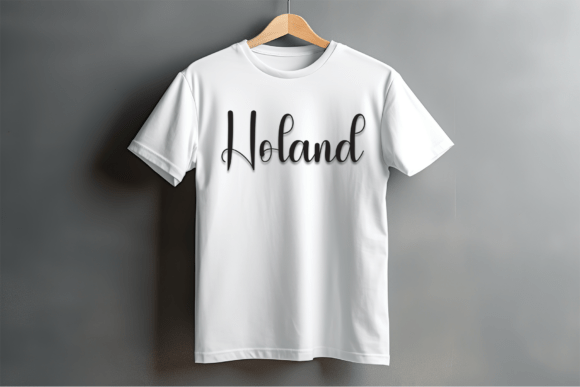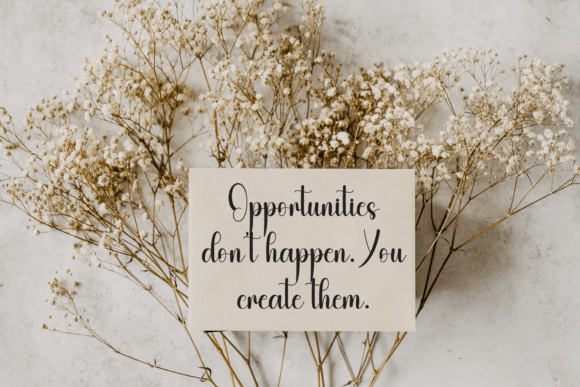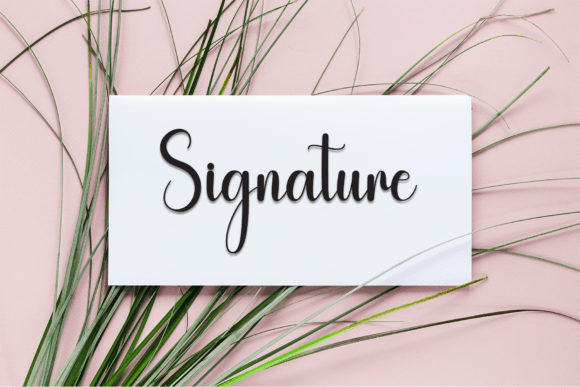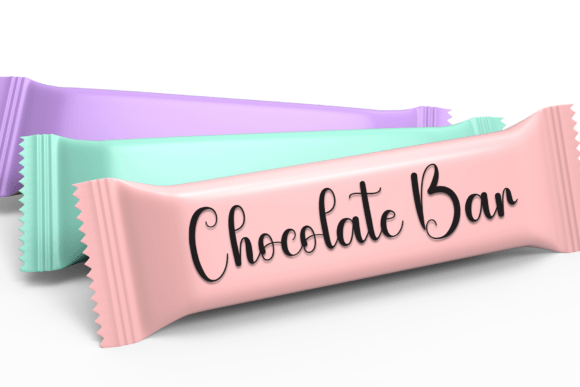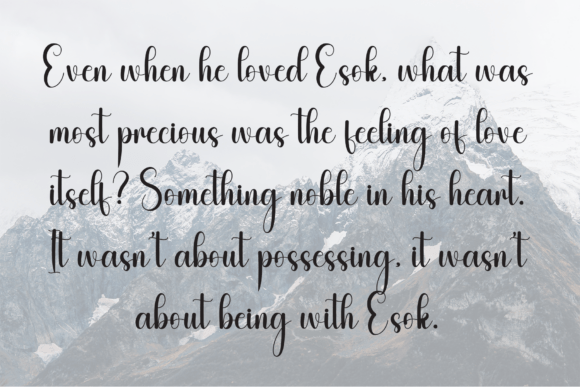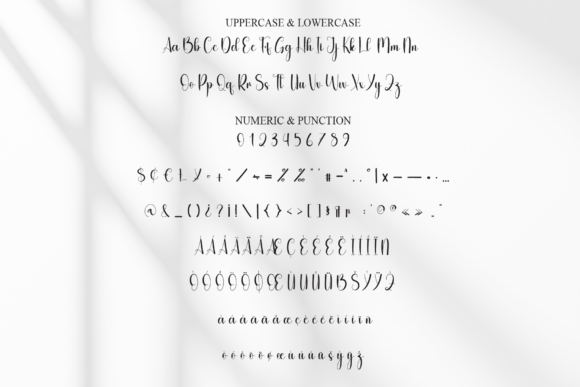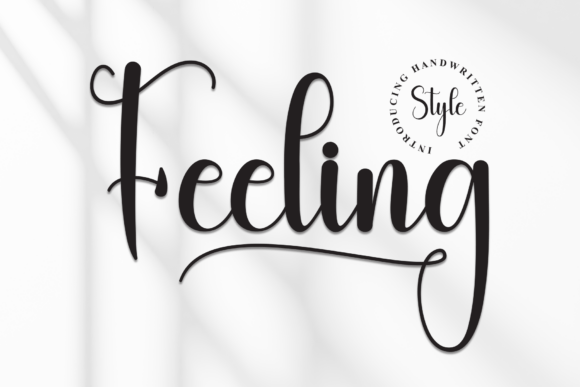
Introducing Feeling Font: Elevate Your Designs with Artistic Flair and Contemporary Elegance
In the world of typography, few fonts manage to capture the essence of hand-painted calligraphy while exuding a modern, sophisticated vibe. Feeling Font is one such exceptional typeface that brings together the fluidity of brush strokes, the dynamism of curves, and the expressiveness of letterforms. This stylish script font is designed to add a creative and elegant touch to various design projects, making it a must-have for designers and crafters alike.
The Artistic Appeal of Feeling Font
Feeling Font is characterized by its fluid brush strokes that give it a natural, hand-painted look. Each letterform is crafted with dynamic curves and subtle variations in line width, creating a sense of movement and energy. This font’s expressive nature makes it perfect for designs that require a personal touch, such as wedding invitations, brand logos, and social media graphics.
One of the standout features of Feeling Font is its ability to convey emotion and personality through its typography. The font’s modern twist on traditional calligraphy makes it versatile enough to be used in a wide range of design contexts, from elegant and sophisticated to playful and creative.
Versatility and Application
Feeling Font’s versatility is one of its most compelling attributes. Its unique blend of artistic flair and contemporary elegance makes it suitable for various design applications, including:
- Logos: Create a lasting impression with a custom logo that showcases your brand’s personality and style.
- Invitations: Add a touch of elegance and sophistication to your wedding invitations, event flyers, or party announcements.
- Packaging: Elevate your product packaging with a font that exudes creativity and refinement.
- Social Media Graphics: Make your social media posts stand out with a font that adds a creative and artistic touch.
Why Choose Feeling Font?
With so many fonts available, why choose Feeling Font for your design projects? Here are a few compelling reasons:
- Unique and Expressive: Feeling Font’s hand-painted look and modern twist on traditional calligraphy make it a unique and expressive typeface.
- Highly Versatile: Its artistic flair and contemporary elegance make it suitable for a wide range of design applications.
- Easy to Read: Despite its creative and artistic nature, Feeling Font remains highly legible, making it perfect for body text and headlines.
- Customizable: With its dynamic curves and fluid brush strokes, Feeling Font offers ample opportunities for customization and creative experimentation.
Tips for Using Feeling Font Effectively
To get the most out of Feeling Font, here are a few tips to keep in mind:
- Pair with Neutral Fonts: Combine Feeling Font with neutral fonts to create visual contrast and hierarchy in your designs.
- Experiment with Colors: Take advantage of Feeling Font’s artistic nature by experimenting with different colors and textures.
- Use for Headlines and Titles: Feeling Font’s expressiveness makes it perfect for headlines and titles, where you want to grab attention and convey personality.
- Don’t Overuse: While Feeling Font is highly versatile, it’s best to use it sparingly to avoid overwhelming your designs.
Feeling Font is a stylish script font that offers a unique blend of artistic flair and contemporary elegance. Its fluid brush strokes, dynamic curves, and expressive letterforms make it perfect for designers and crafters looking to add a creative and sophisticated touch to their designs. With its versatility, expressiveness, and high legibility, Feeling Font is an excellent choice for various design applications, from logos and invitations to packaging and social media graphics.
Whether you’re a seasoned designer or a crafty DIY enthusiast, Feeling Font is sure to inspire your creativity and elevate your designs to new heights.